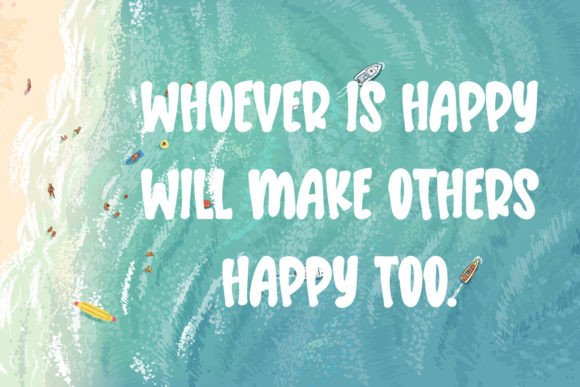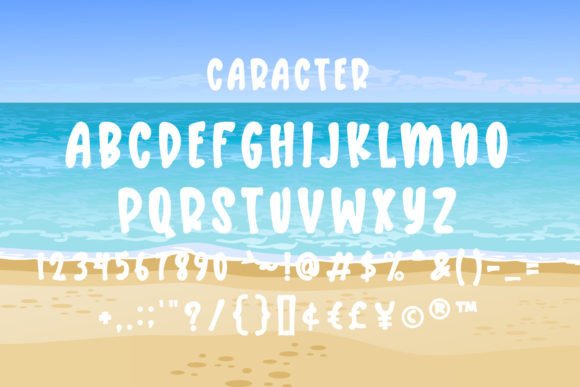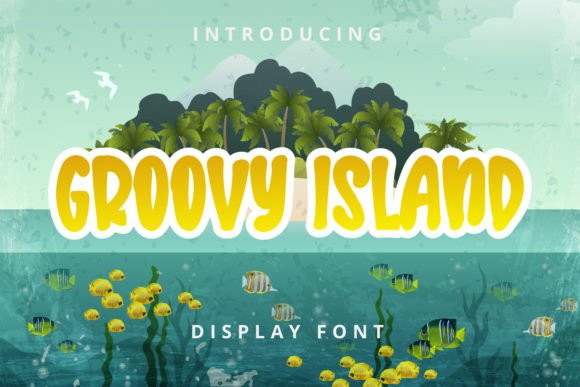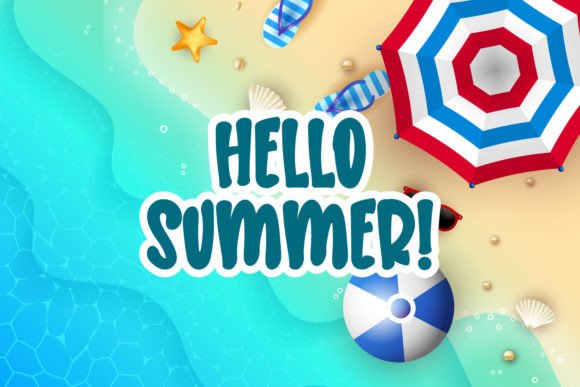
Groovy Island Font: A Cute Display Font for Summer & Playful Designs
About the Groovy Island Font
Presenting Groovy Island Font, a unique and stylish typeface that will make your work stand out. Groovy Island is cute and fun display font. No matter the topic, this font will be an incredible asset to your fonts’ library, as it has the potential to elevate any creation. This font is perfect for packaged food products such as snacks, milk, yogurt, jelly, and more.
Groovy Island’s playful, rounded forms make it ideal for headlines, short text blocks on packaging, posters, and social media graphics. Its informal nature, however, makes it unsuitable for body text or lengthy content, where readability suffers. Avoid using it in UI design or situations requiring high levels of legibility.
The font’s inherent friendliness pairs well with clean sans-serif fonts like Open Sans or Lato for a balanced contrast. For a more vintage feel, consider pairing it with a slightly distressed serif like Playfair Display. Avoid pairing it with other highly stylized or decorative fonts to prevent visual clutter.
Groovy Island exudes a cheerful, retro vibe, perfect for brands targeting a young, energetic demographic. Think ice cream parlors, children’s products, or summer-themed events. Its personality is best described as light-hearted and optimistic.